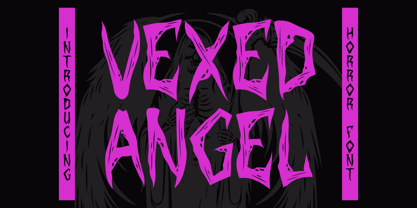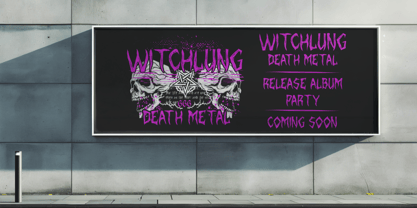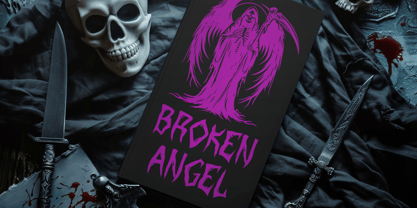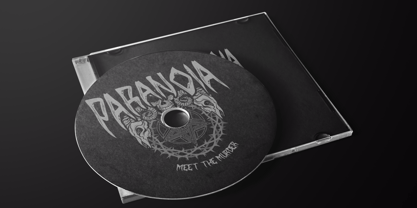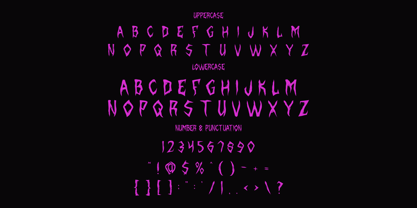
Vexed Angel
by Shanaf
The Vexed Angel Font Family was designed by Yesie Erma Yunita and published by Shanaf. Vexed Angel contains 1 styles. More about this family
Vexed Angel is a horror-themed display font designed to cut through the dark. With aggressively jagged strokes and asymmetrical letterforms, each glyph carries the raw energy of a twisted nightmare. The font mimics hand-carved, distressed lettering—perfectly unrefined with eerie spikes, rough cuts, and unpredictable movement. Its uppercase and lowercase sets offer subtle contrast while maintaining cohesion, and the glyphs are exaggerated to maximize visual drama. The font also includes numbers and essential punctuation, making it versatile for multi-purpose horror-driven graphics.
Ideal for Halloween projects, band merch, horror movie posters, creepy book covers, eerie album art, or anything that needs terrifying typographic impact. Vexed Angel performs best at display sizes, where its fierce personality can command attention. It complements dark themes, gothic aesthetics, or punk horror styles, and works exceptionally well in vertical and diagonal compositions due to its dynamic angles and spiky silhouettes. Whether you're branding a haunted house event or crafting a death metal logo, Vexed Angel ensures your message screams with visual impact.
Designers: Yesie Erma Yunita
Foundry: Shanaf